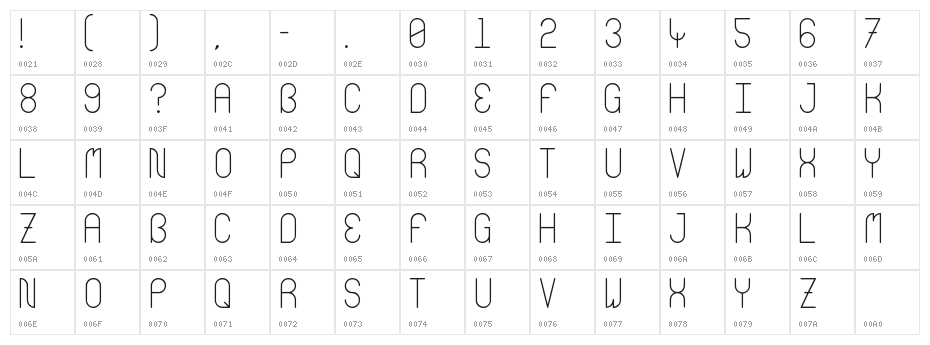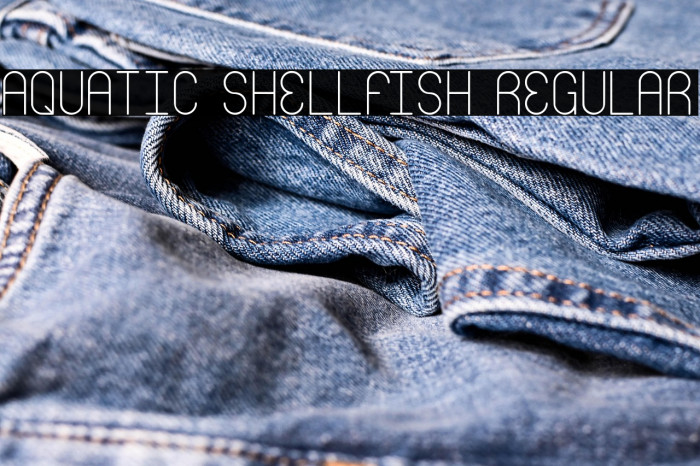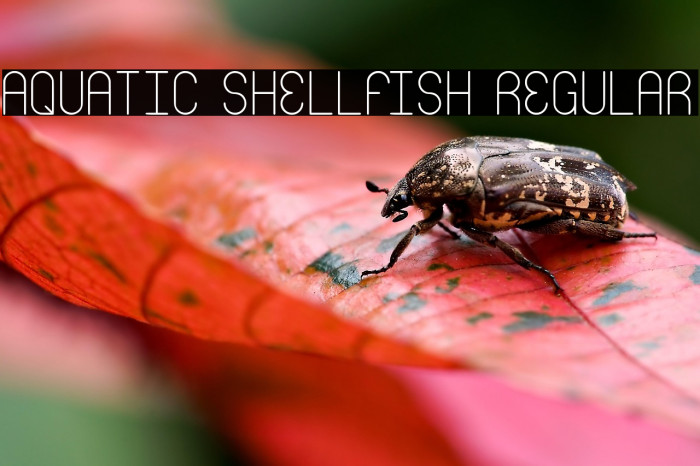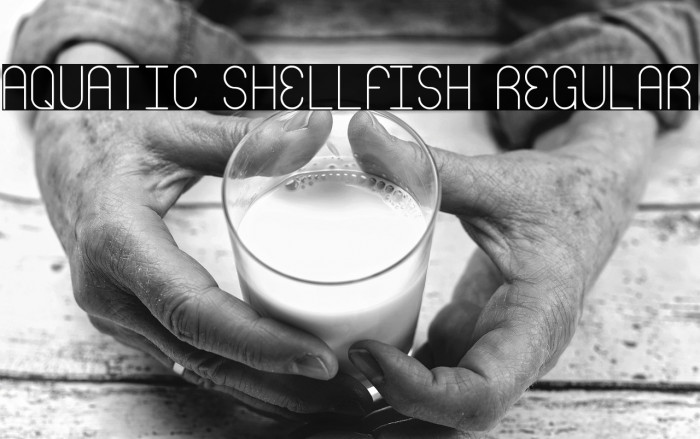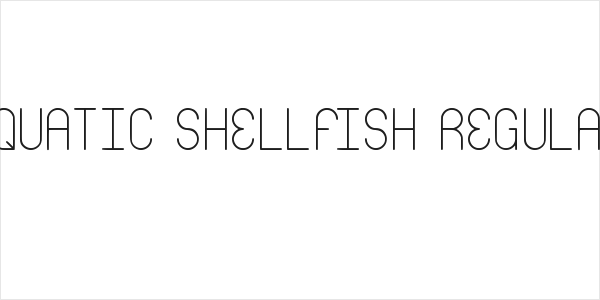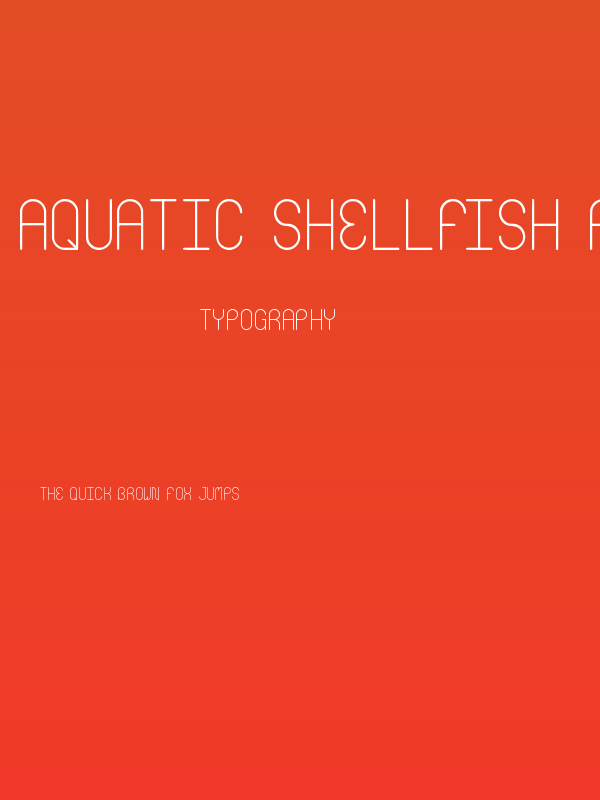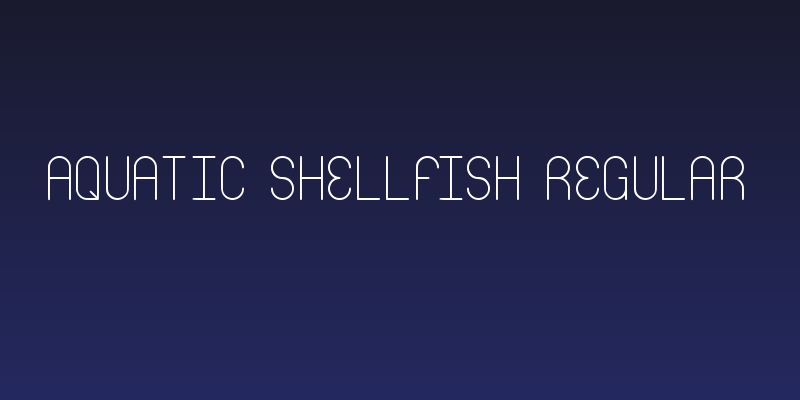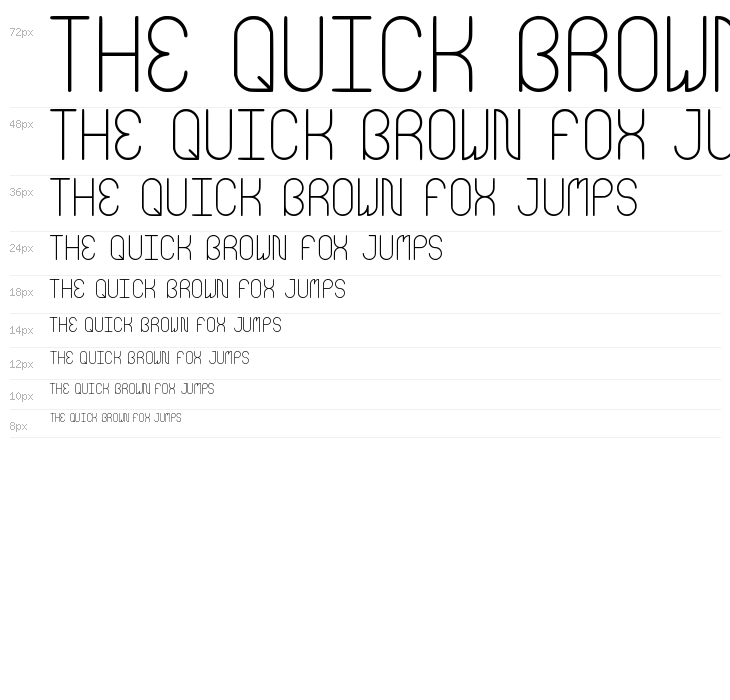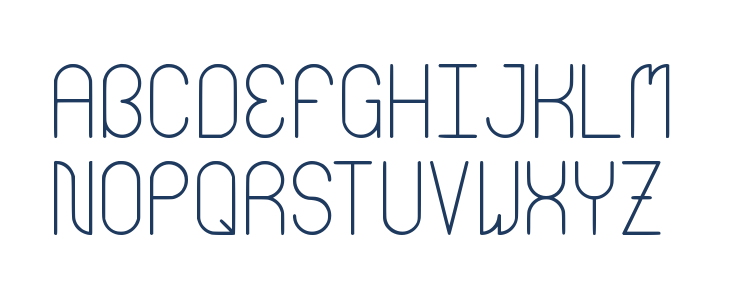
Aquatic Shellfish Regular Font
Aquatic Shellfish Regular Description
This font features a clean, modern aesthetic with a geometric structure. The characters are composed of thin, uniform lines that create a sense of elegance and simplicity. The rounded edges and consistent stroke width contribute to a harmonious and balanced appearance. The uppercase and lowercase letters maintain a uniform height, enhancing readability. The numerals are distinct and align well with the overall style, while the special characters are designed to complement the alphabet with similar line weights and curves. This font is versatile and can be used in various design contexts.